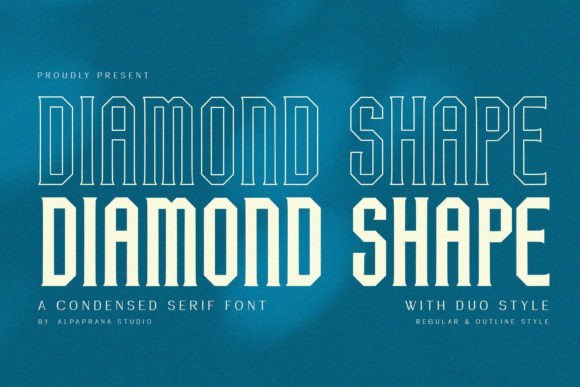
The Perfect Cut: Unveiling the Diamond Shape Font
As designers, we’ve all been there – staring at a blank canvas, struggling to find the perfect font to bring our vision to life. The ‘aha’ moment arrives when we stumble upon a font that effortlessly elevates our design, making it pop with elegance and sophistication. For those seeking a condensed serif font that exudes modern charm, the Diamond Shape Font is a game-changer.
With its sleek, refined design, the Diamond Shape Font is perfect for a variety of projects, from magazines and packaging to posters, shopping bags, and book covers. Its versatility and timeless appeal make it a valuable addition to any designer’s toolkit.
- Unique Characteristic: The font’s diamond-shaped letters and symbols provide a distinctive visual appearance, ideal for adding a touch of elegance and sophistication to designs.
Diamond Shape Font Review
I recently had the chance to work with the Diamond Shape Font, and I have to say, it’s a unique and interesting addition to any design project. ✨ Here are some of its strengths:
- Unconventional style that can add a touch of sophistication and elegance to your design.
- Highly customizable, allowing designers to experiment with different font sizes, colors, and styles.
- Works particularly well for headings and titles, where its diamond shape can add a sense of luxury and exclusivity.
However, like any font, it’s not without its limitations: ⚠️
- Can be difficult to read at smaller font sizes, making it less suitable for body text.
- Might not be the best choice for designs that require a lot of text, as its diamond shape can be distracting.
- May not be compatible with all platforms or devices, which could lead to display issues.
Overall, I think the Diamond Shape Font is a great choice for designers looking to add some flair to their projects. While it may have some limitations, its unique style and high customizability make it a valuable addition to any design toolkit.
The Diamond Shape Font is commonly used in graphic design, particularly in logos, headings, and titles. It adds a unique and eye-catching touch to designs, making it perfect for modern and edgy styles.
For optimal results, pair the Diamond Shape Font with bold and bright colors to create a striking visual effect. Experiment with different font sizes and combinations to create a unique look that suits your design style.